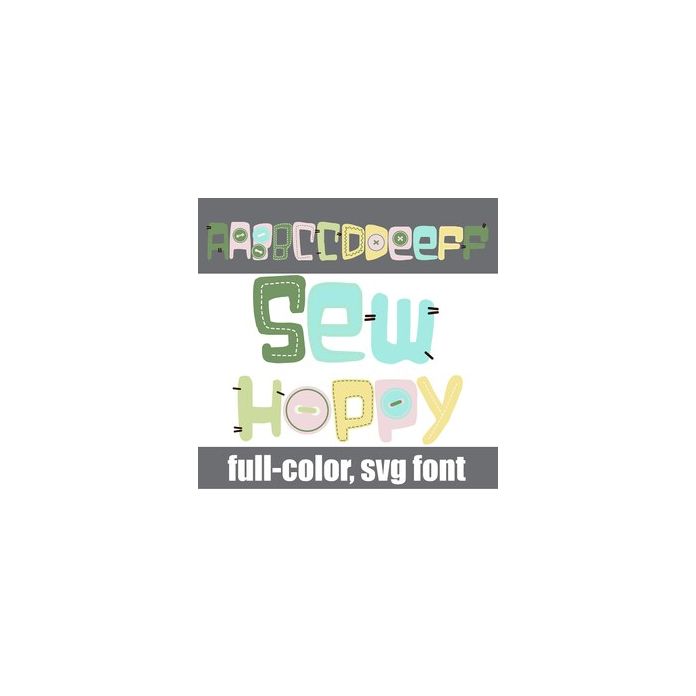
This full-color font features whimsical lettering with stitches and buttons in an Easter color palette. There is an alt case w/ additional colors you can access through your system or Silhouette's glyph map.